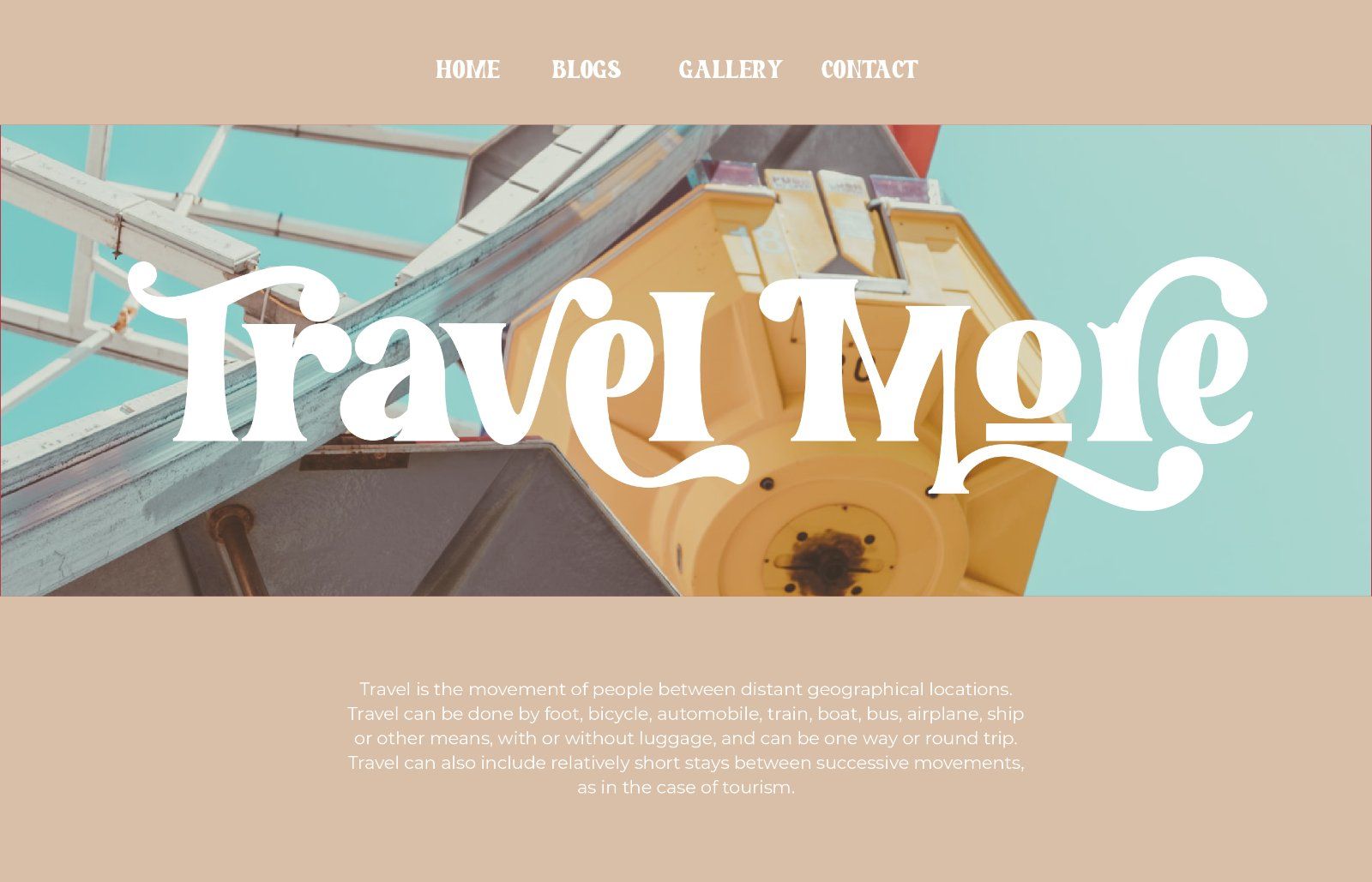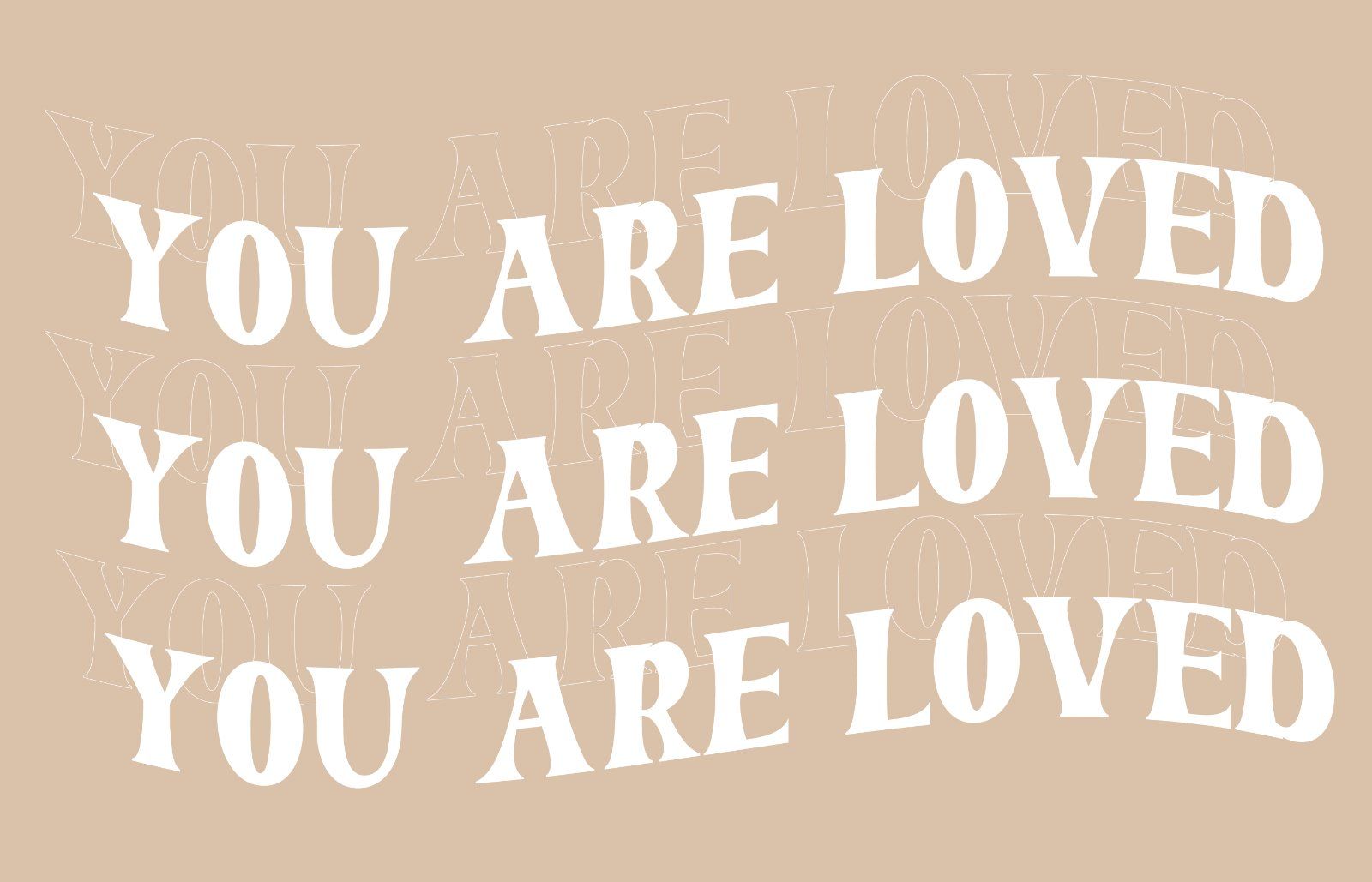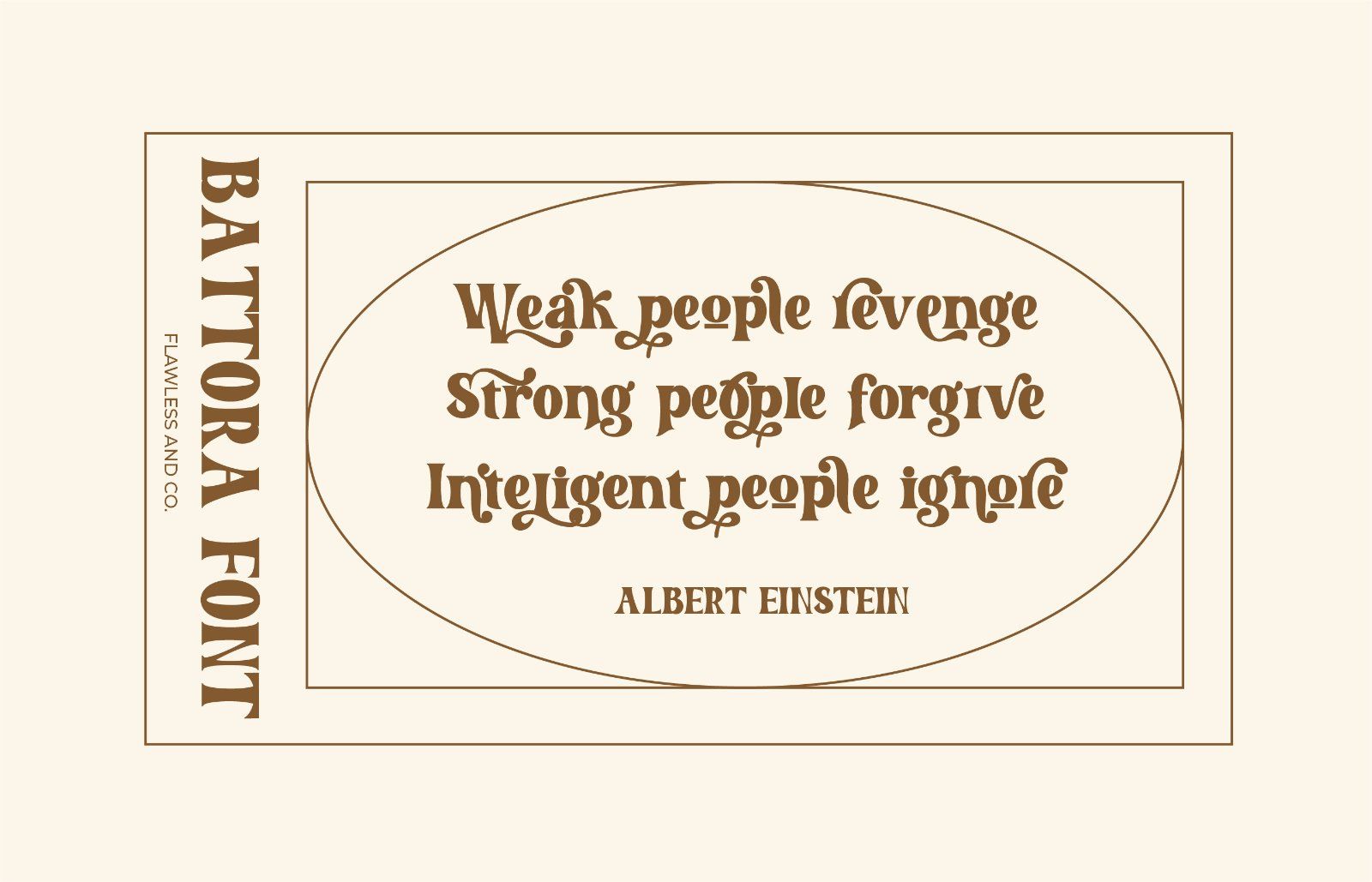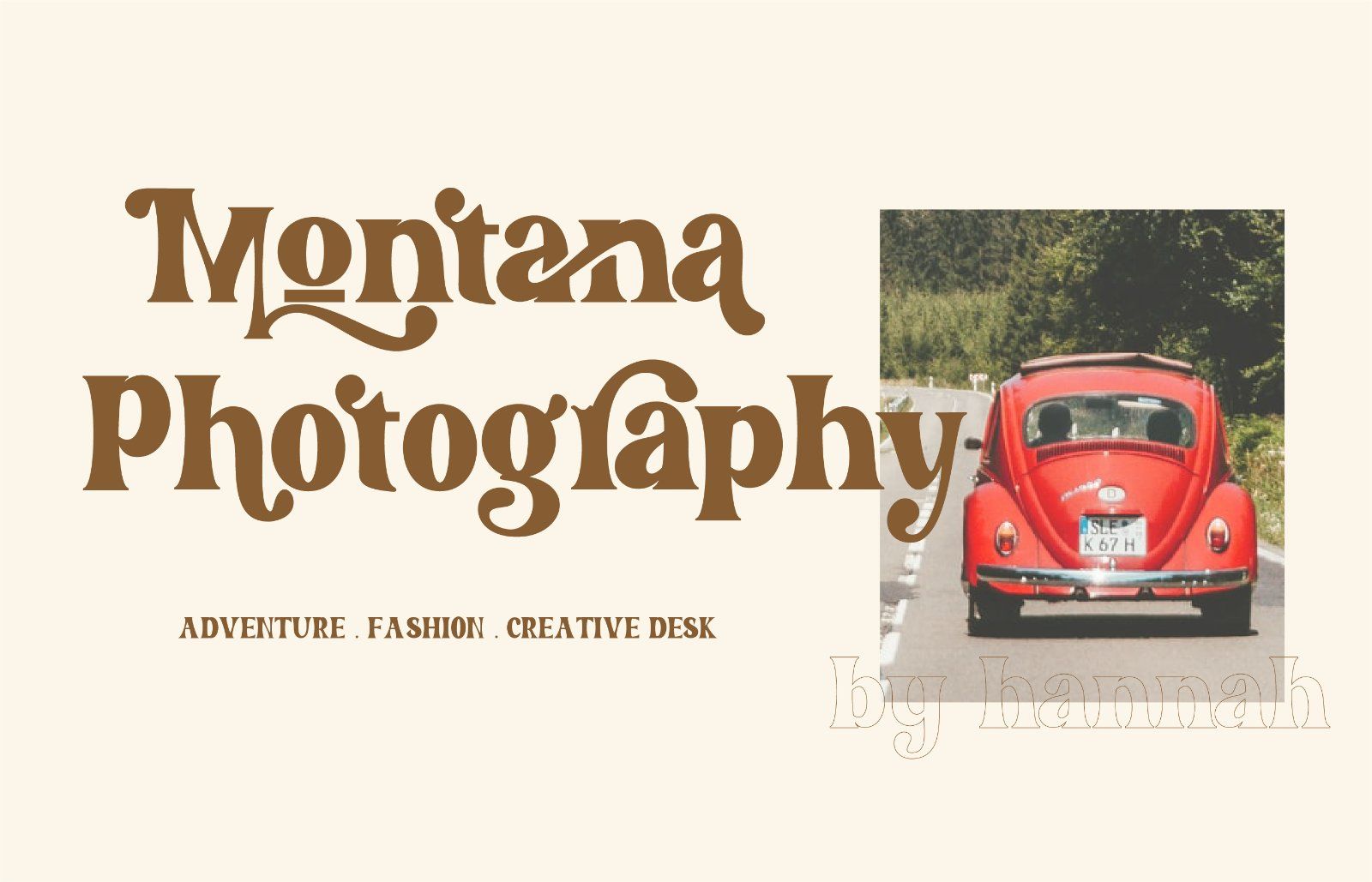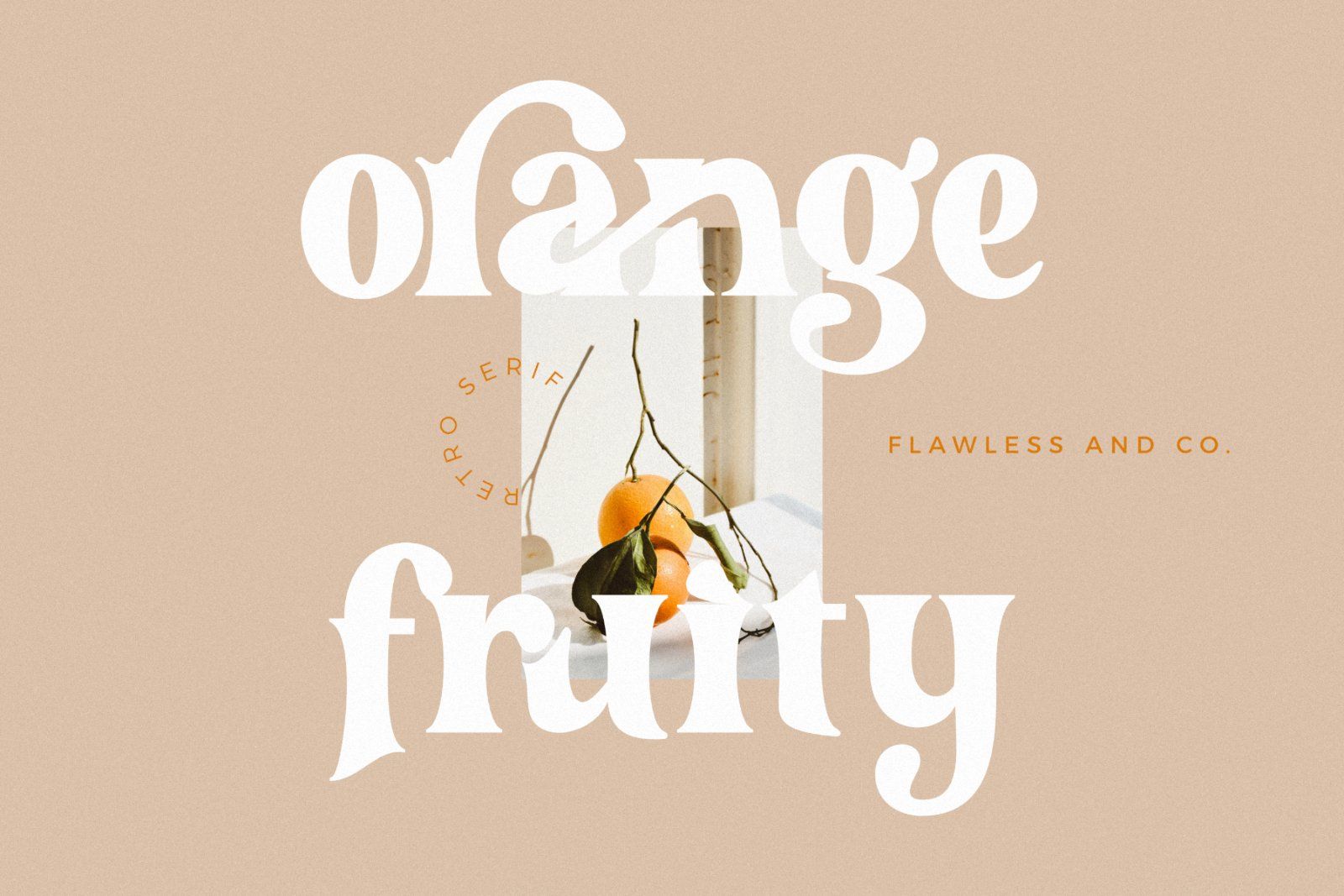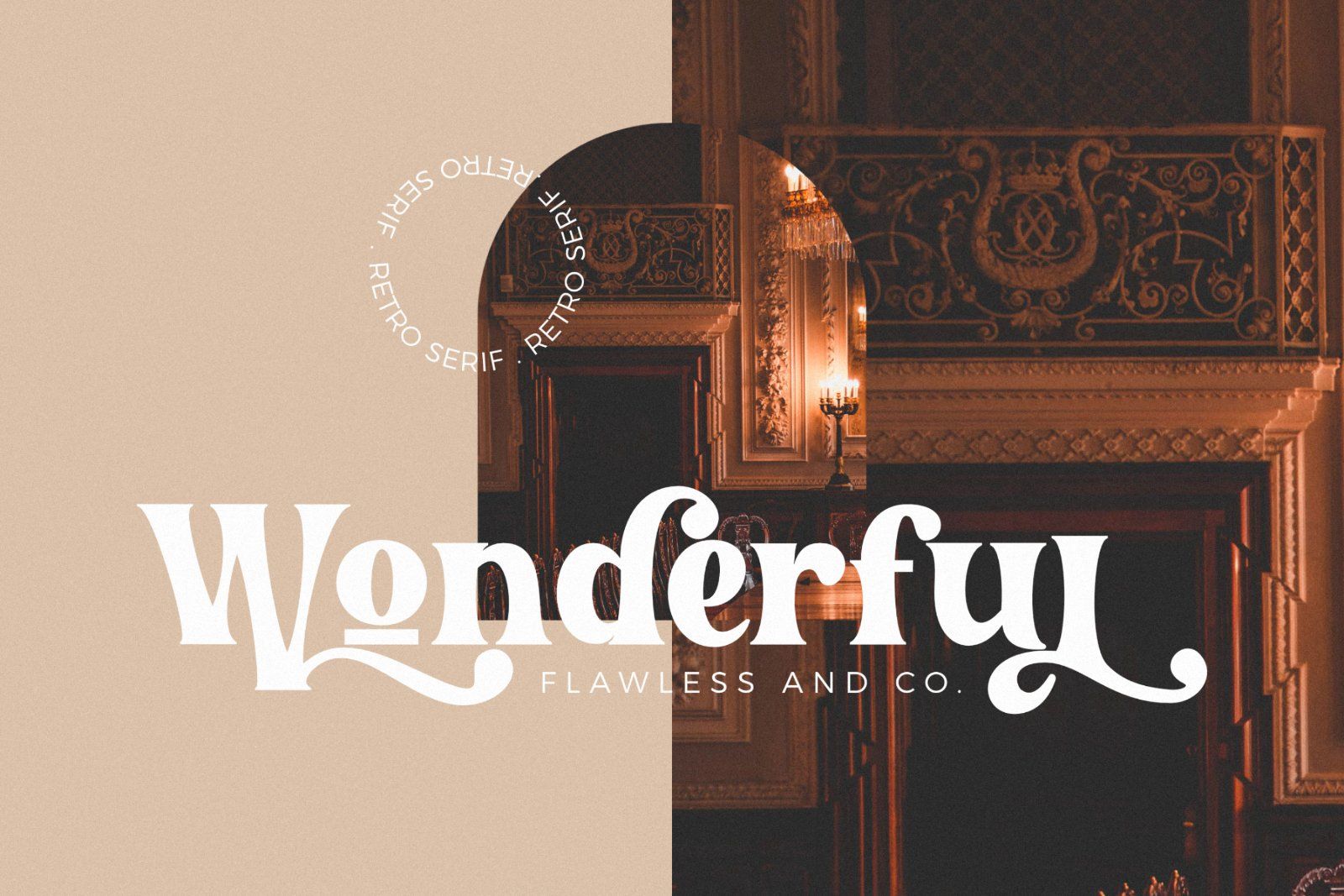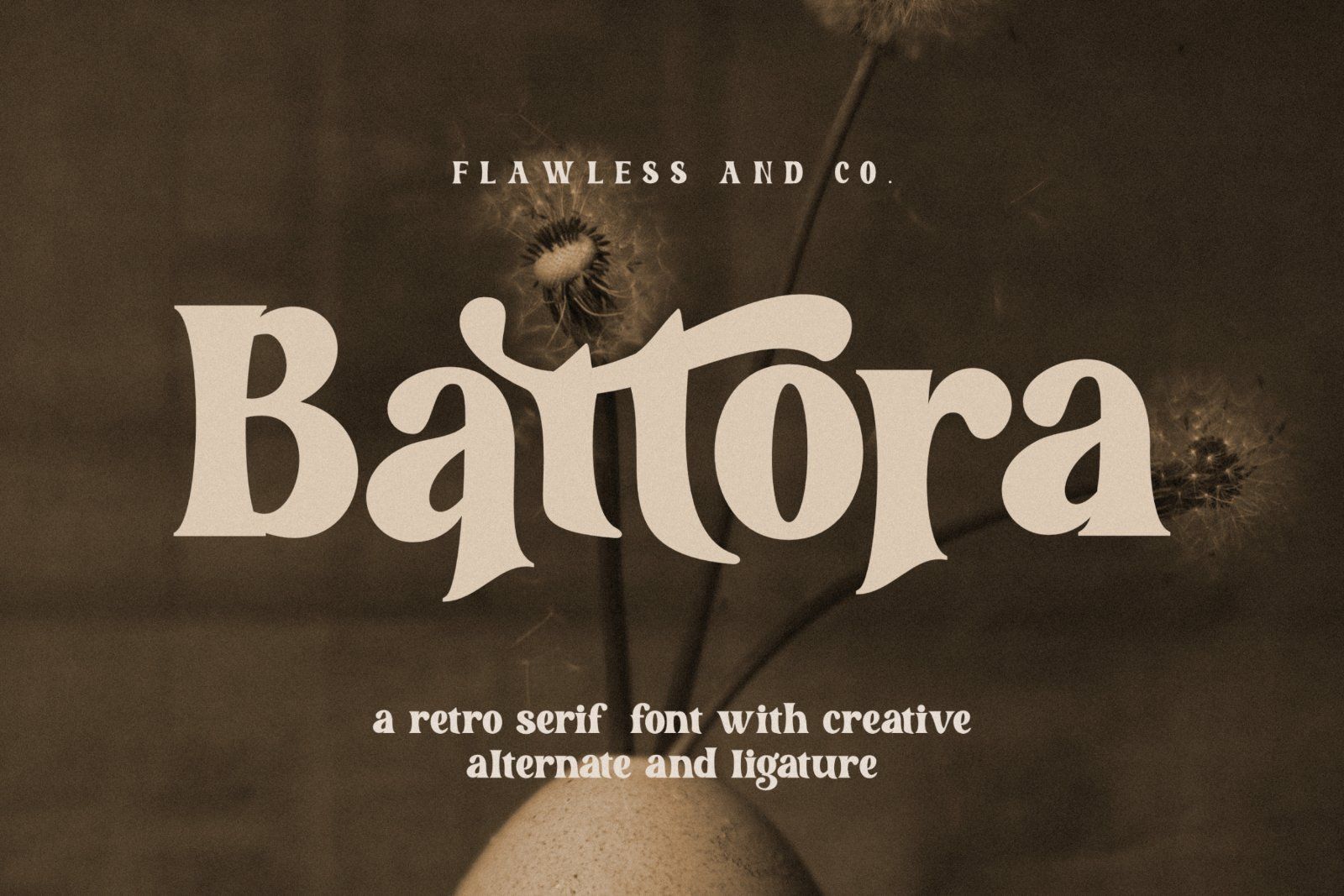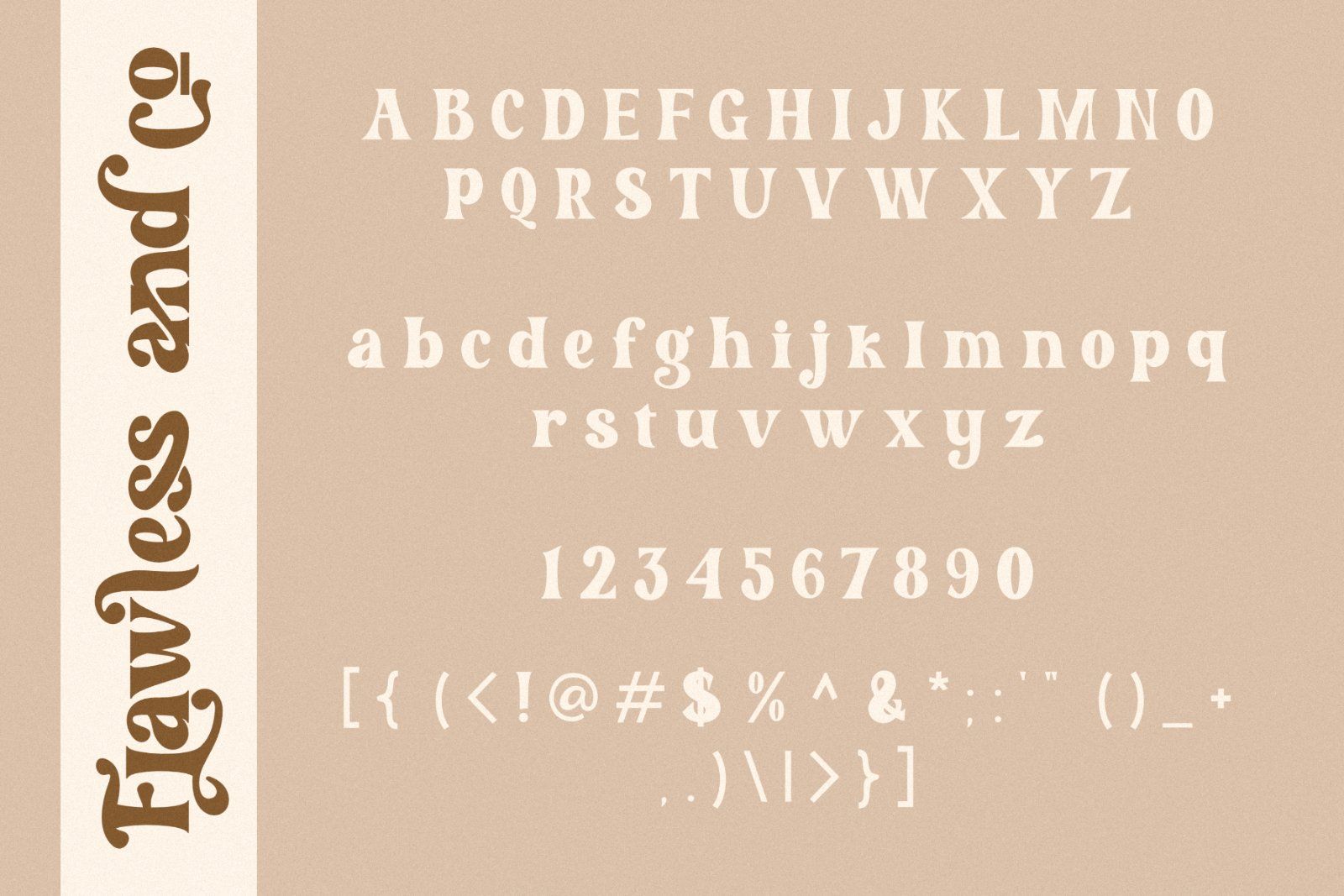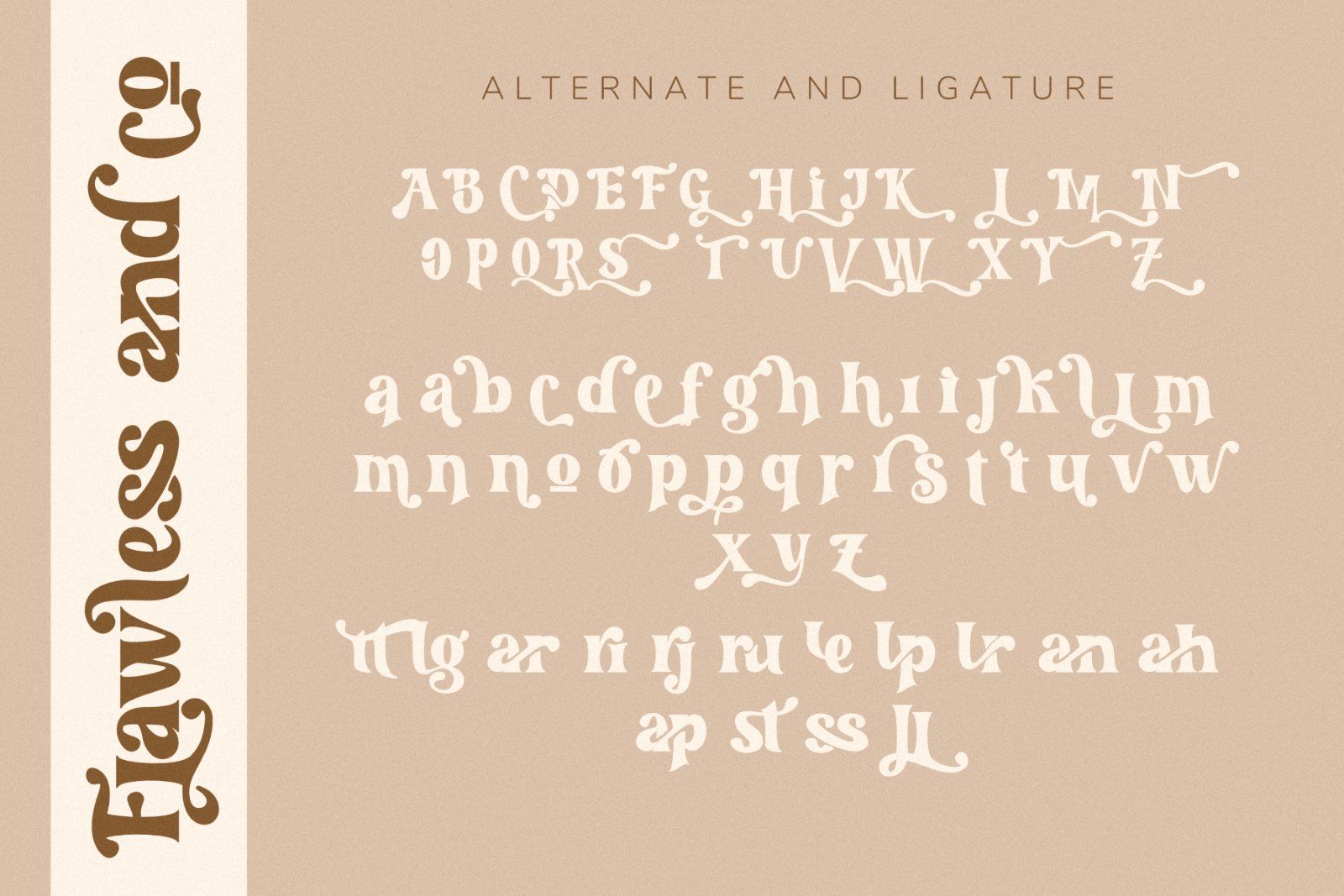
Battora is a bold retro serif font that blends vintage character with a creative and expressive personality. Featuring chunky letterforms, distinctive curves, and playful details, Battora brings a warm nostalgic feel while maintaining a strong and stylish presence.
• Uppercase alphabet A-Z
• Lowercase alphabet a-z
• Alternate Character
• Numbers 0-9
• Some punctuation